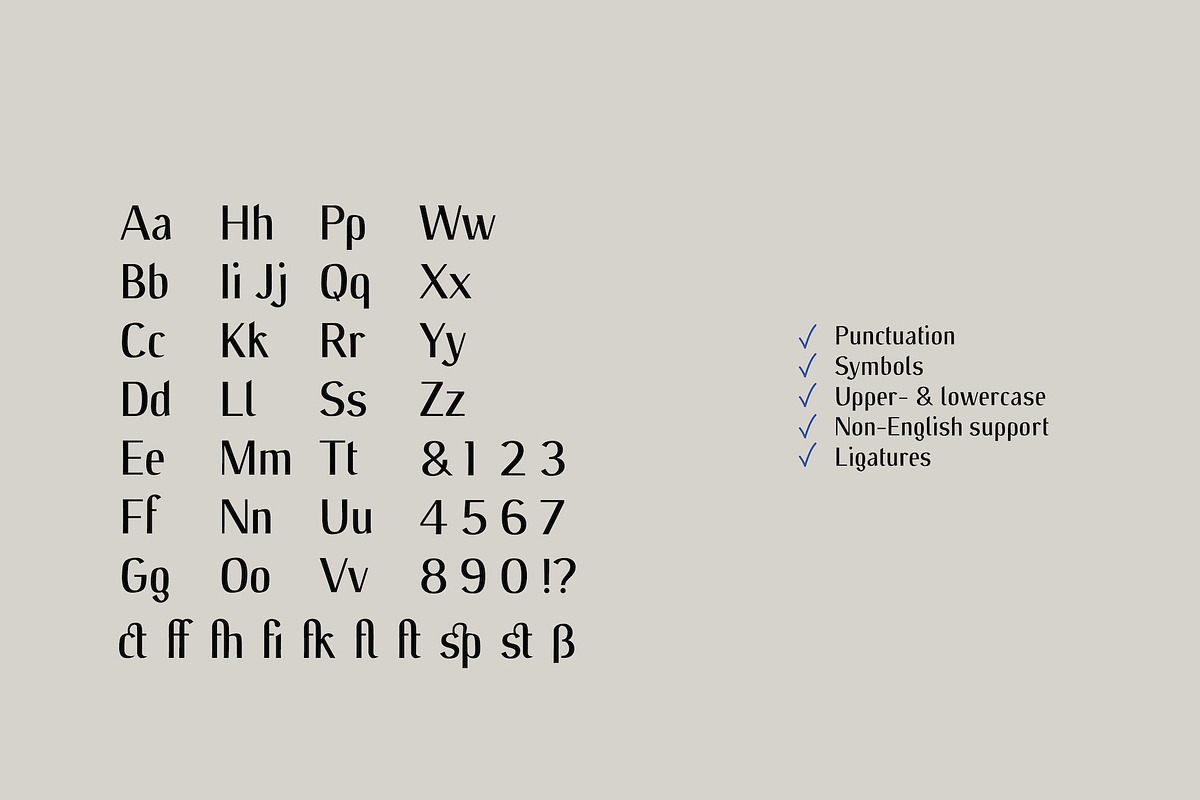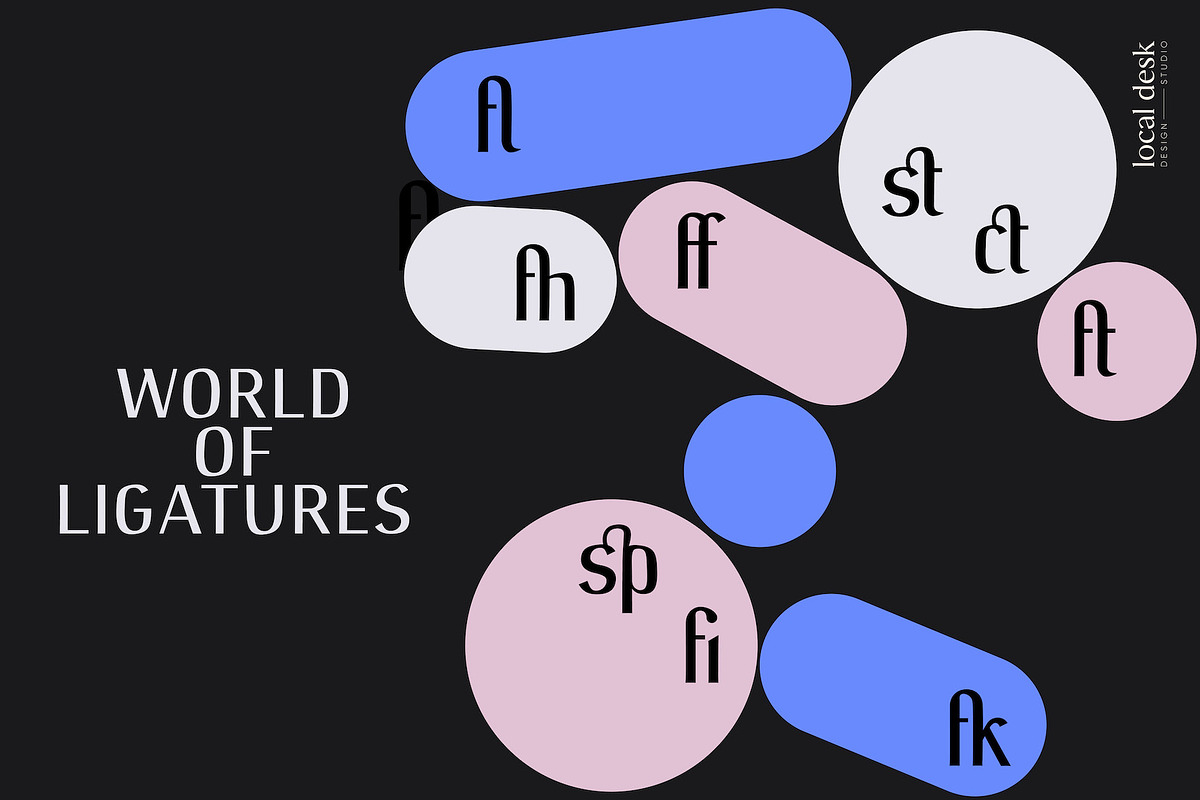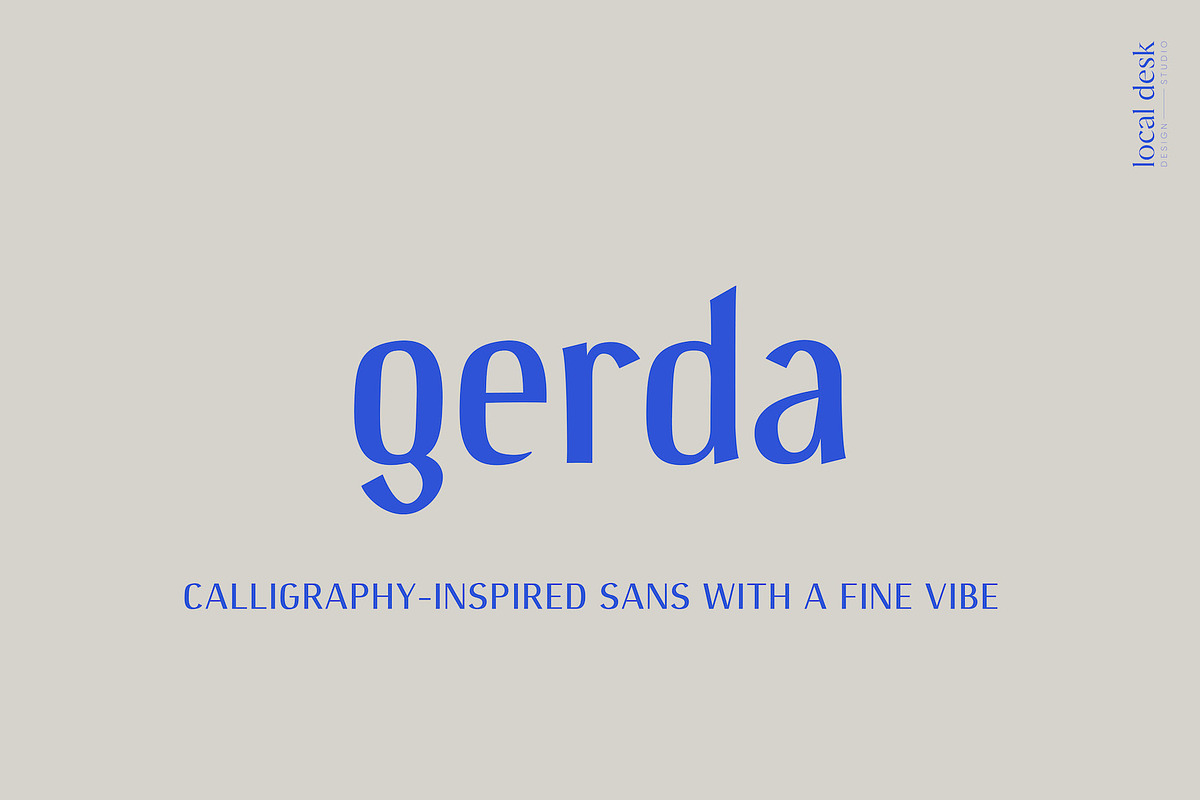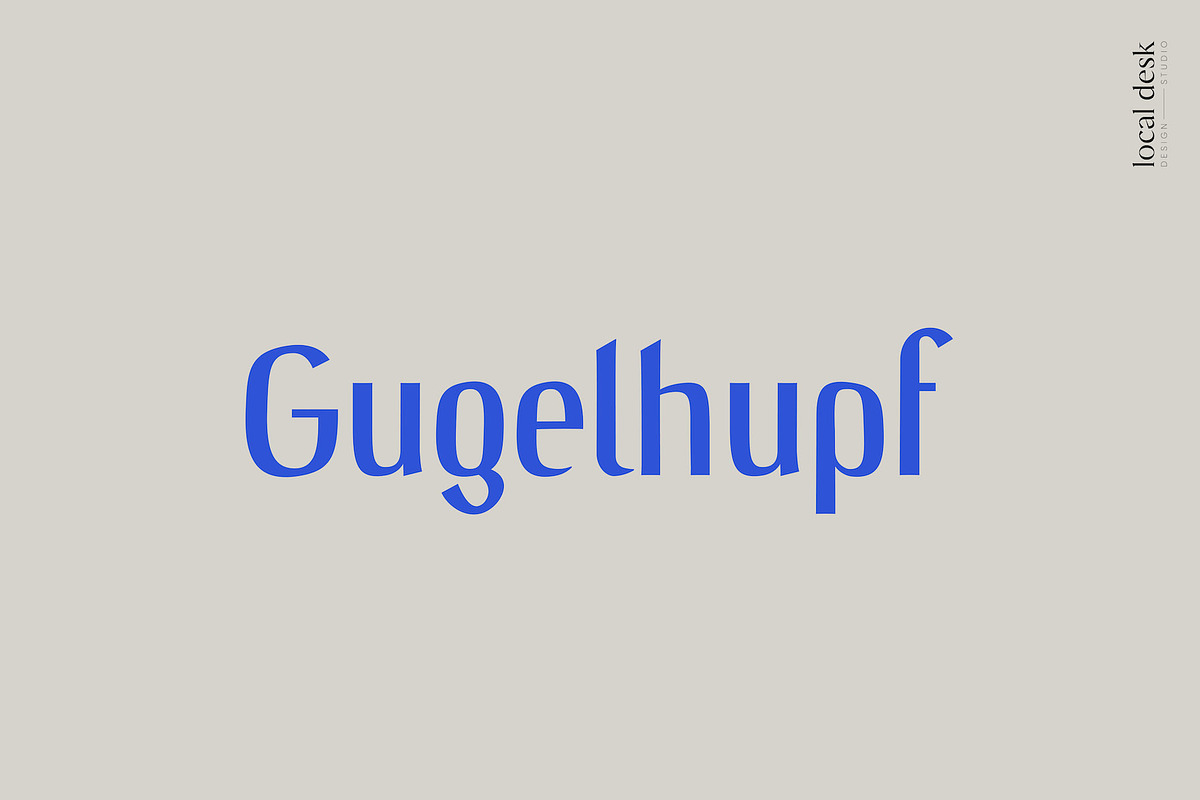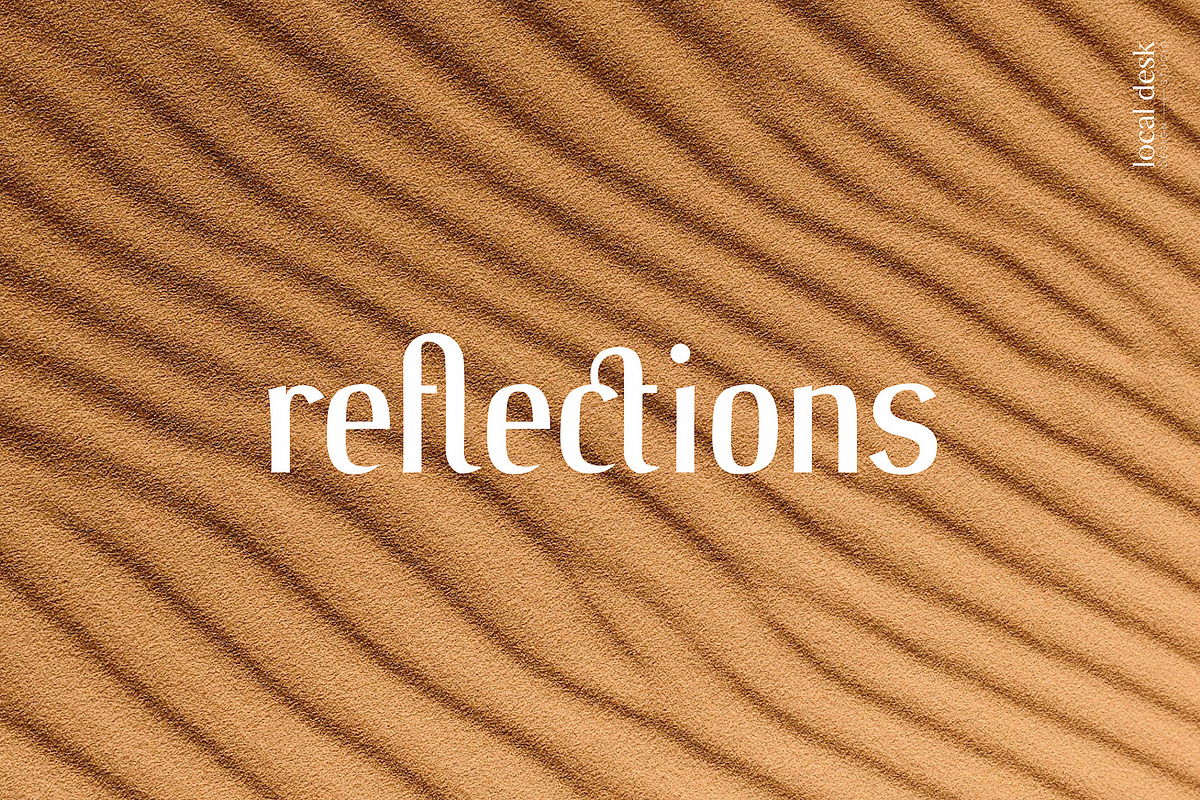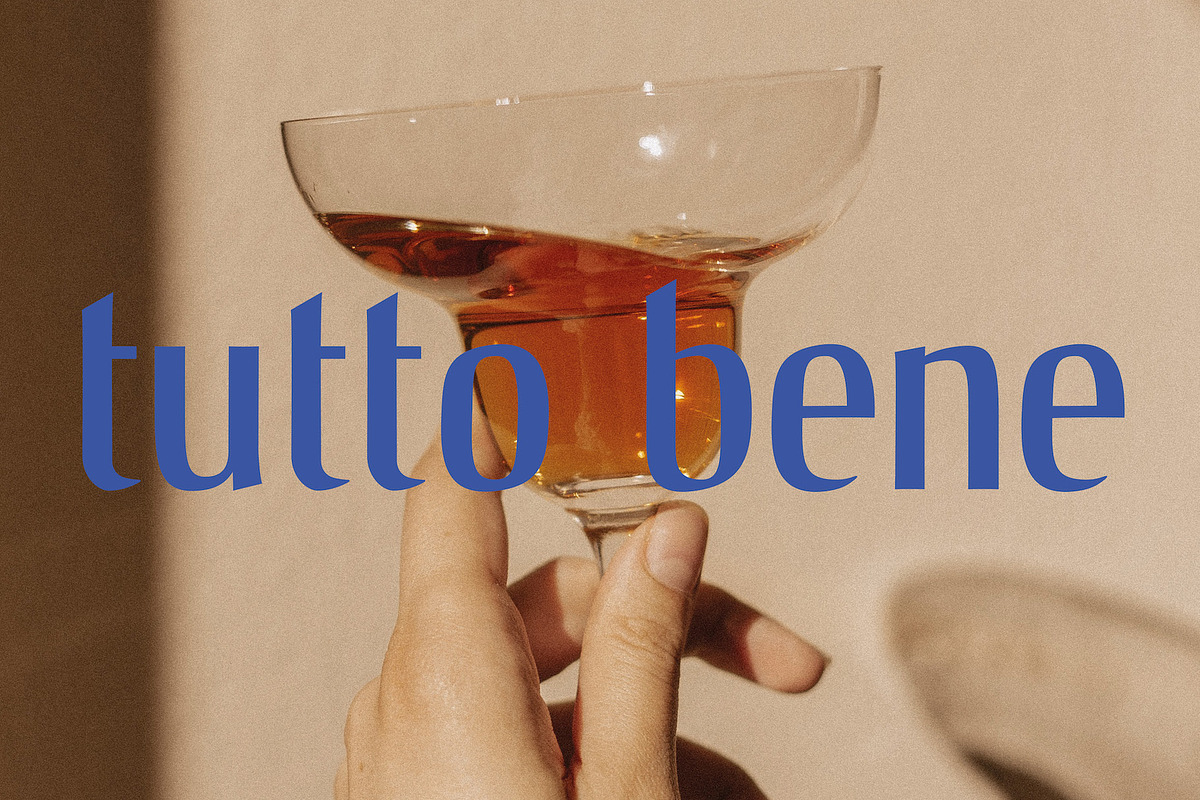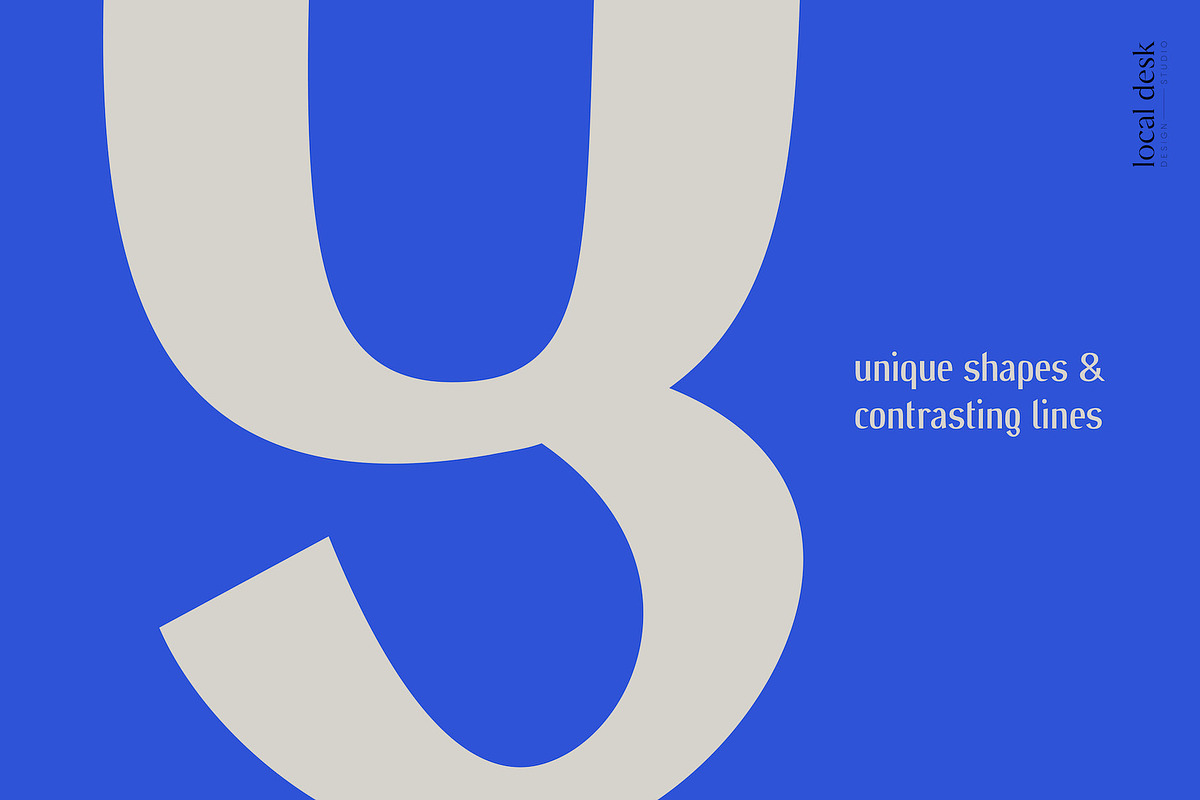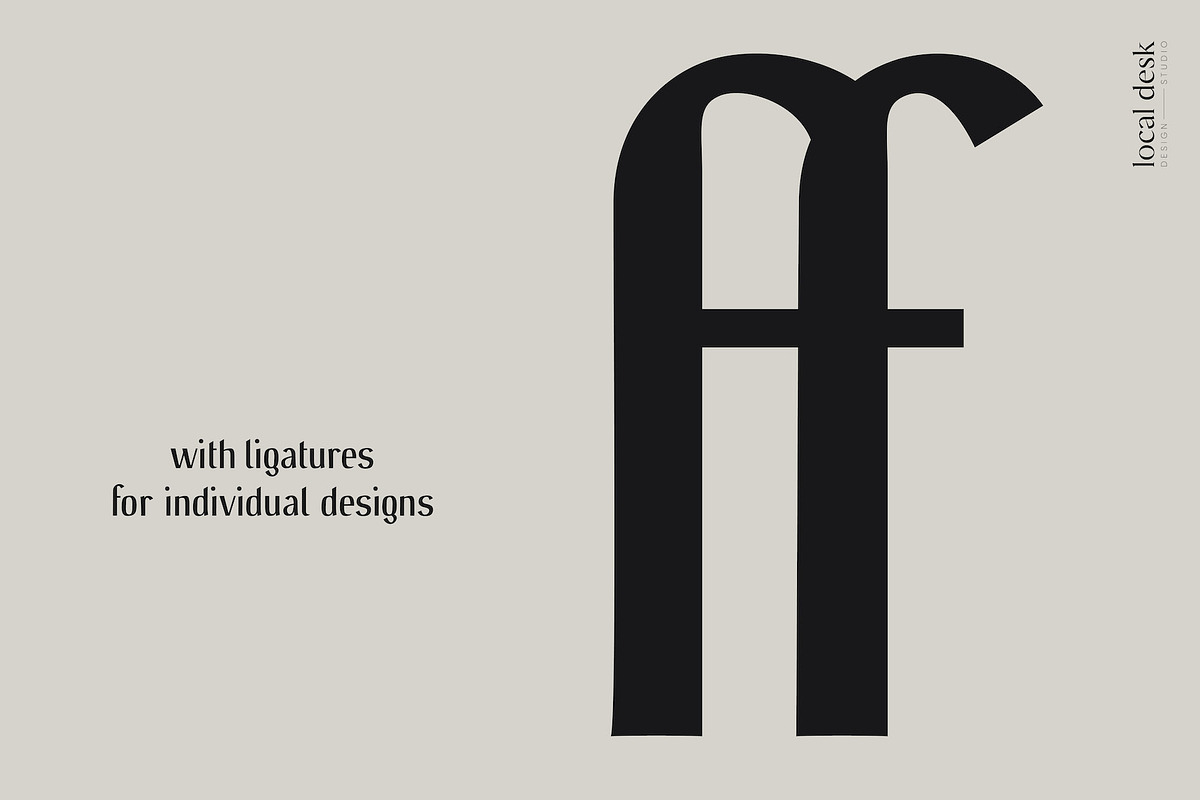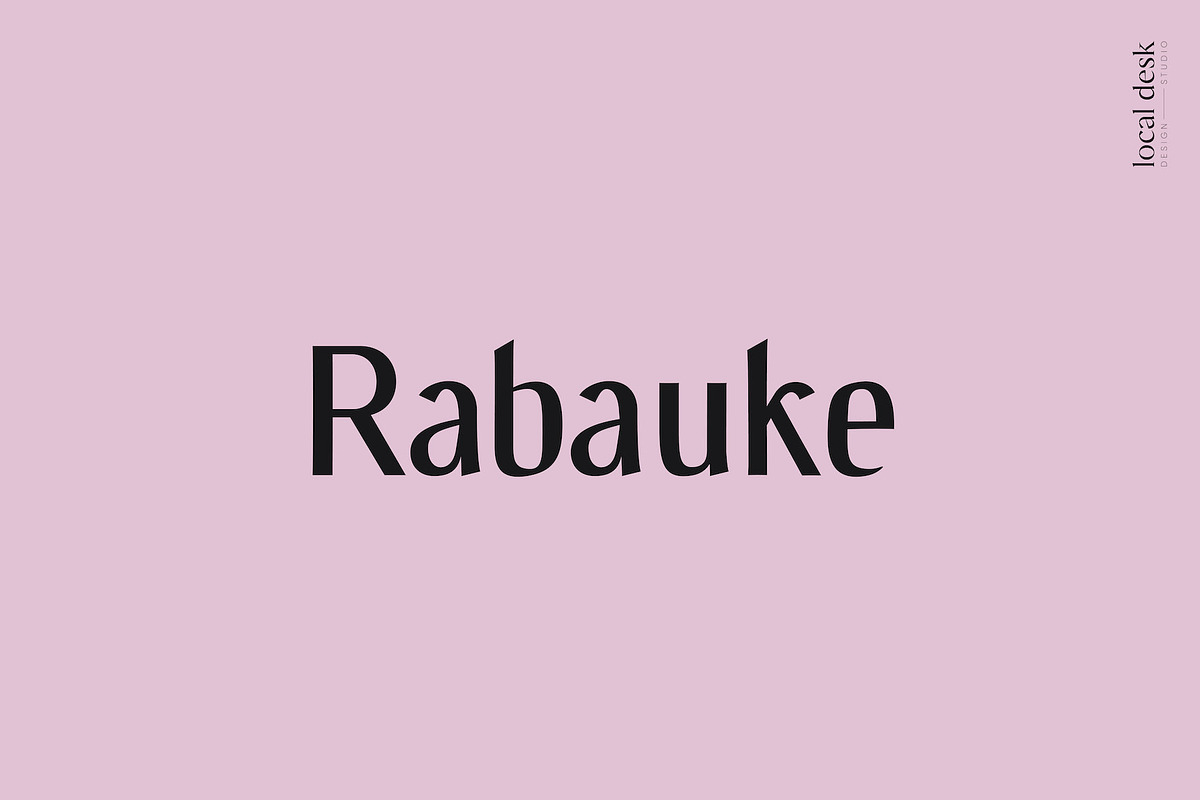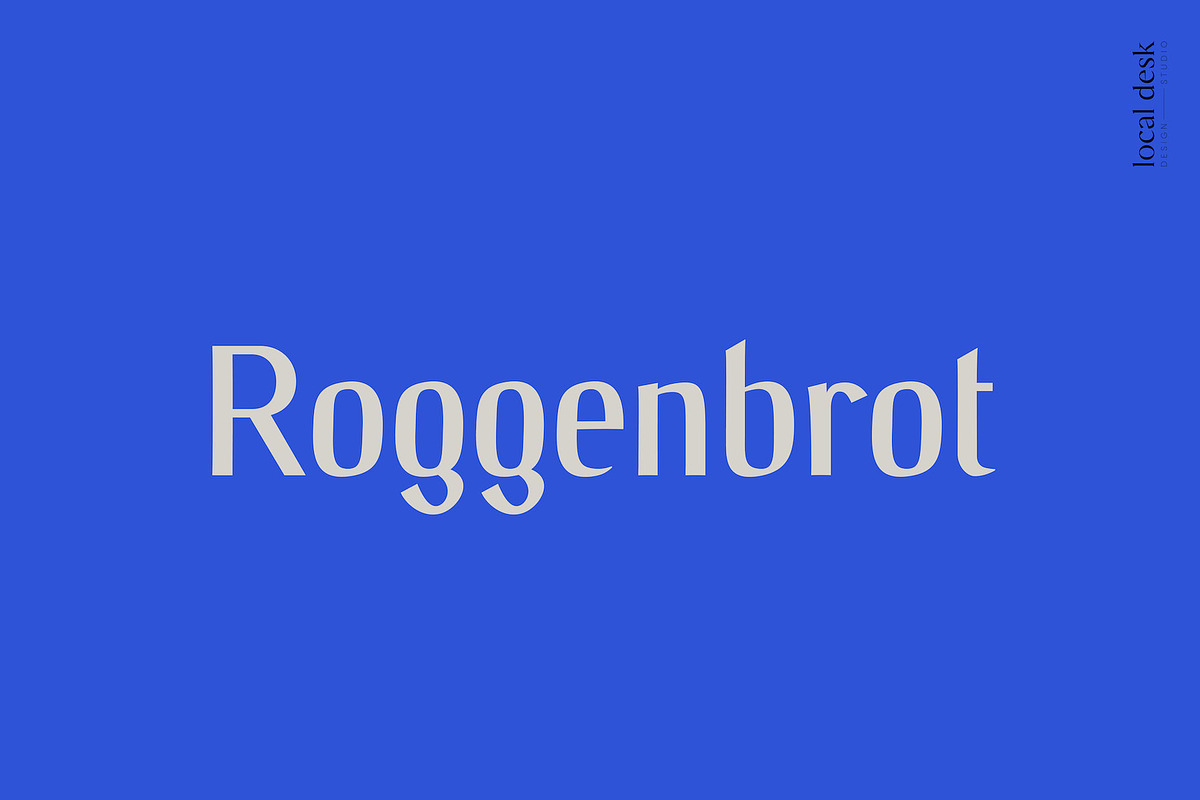
Gerda – A Calligraphic Sans Serif
Gerda is a distinctive, classic sans serif typeface that is inspired by traditional calligraphy and turned into a modern typeface. Unique shapes and contrasting lines create this memorable font with a fine vibe & flow. Gerda is perfectly suited for designing recognizable & modern brands, contemporary packaging, unique quotes, websites and so much more!
This font is equipped with standard ligatures to give you all the flexibility you need for your next design project.
- Upper- & Lowercase Alphabet
- Ligatures (can be accessed via the glyphs panel)
- Numbers + Punctuation
- Non-English support
- Kerned & Spaced